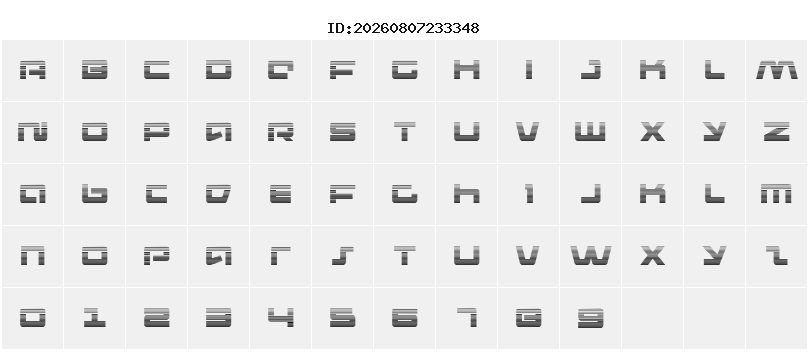
Pulse Rifle Gradient Preview
• Font Name: Pulse Rifle Gradient
About Pulse Rifle Gradient.ttf
Pulse Rifle Gradient.ttf is a modern, elegant sans-serif font designed for ultimate readability and visual harmony. Perfect for branding, headlines, web design, and print materials.